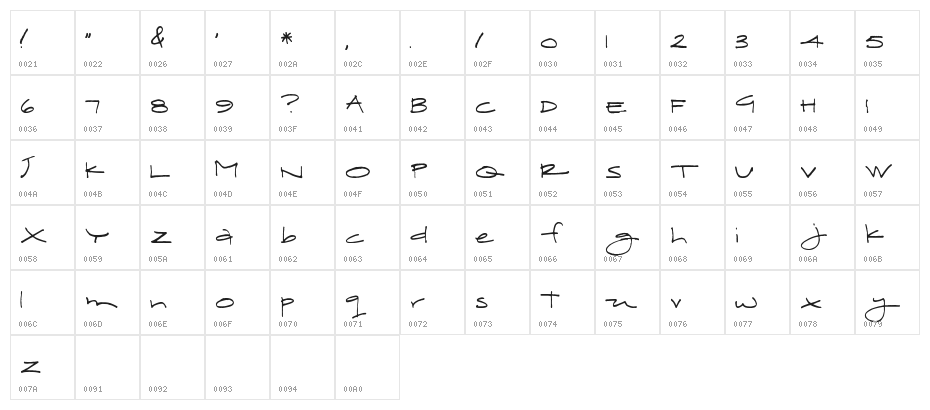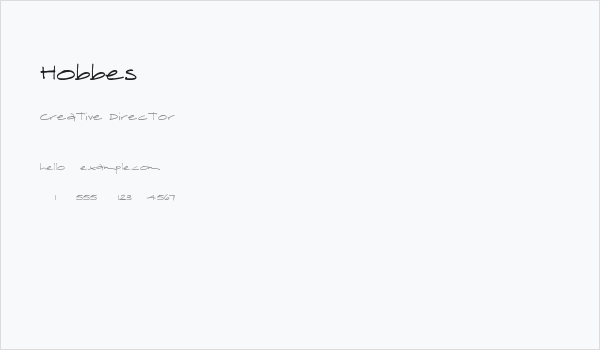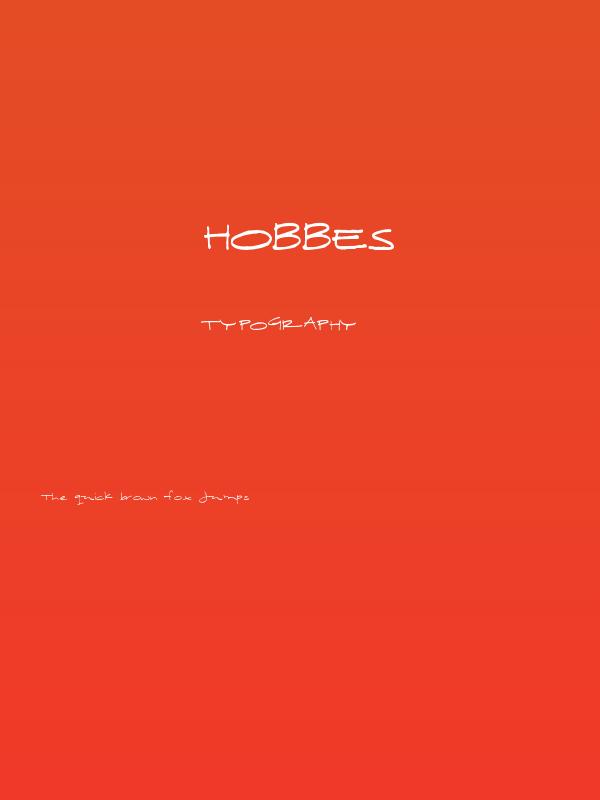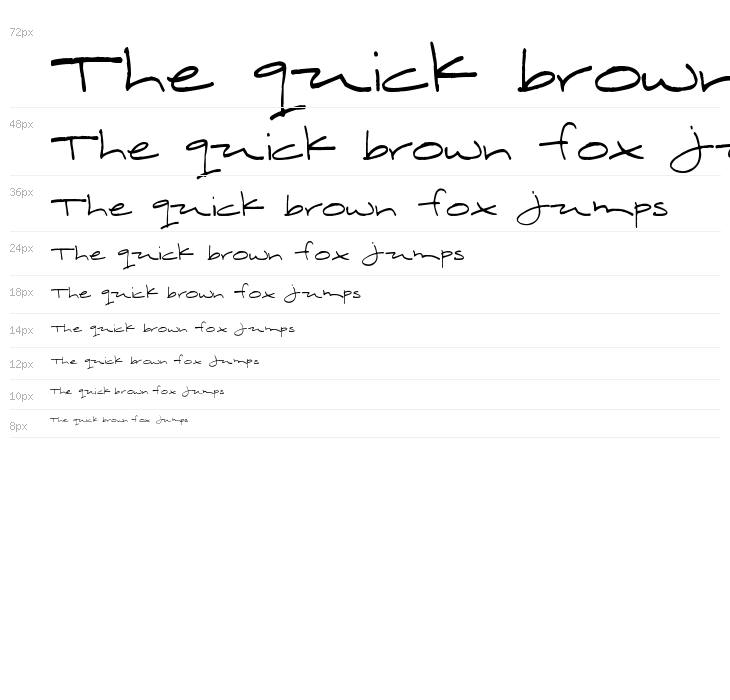
Hobbes Font
Hobbes Description
This font features a playful and casual handwritten style, characterized by its irregular strokes and slightly uneven baseline. The uppercase letters are bold and dynamic, with a sense of movement and spontaneity, while the lowercase letters maintain a consistent flow with rounded forms and occasional loops. The numerals are distinct and easy to read, matching the overall informal aesthetic. Special characters are creatively integrated, adding to the font's quirky charm. This font exudes a friendly and approachable vibe, making it suitable for projects that require a personal touch.
| Use Case | Logos, Headlines, Informal Text |
| Proposed Projects | Ideal for greeting cards, personal branding, casual invitations, and playful marketing materials. |